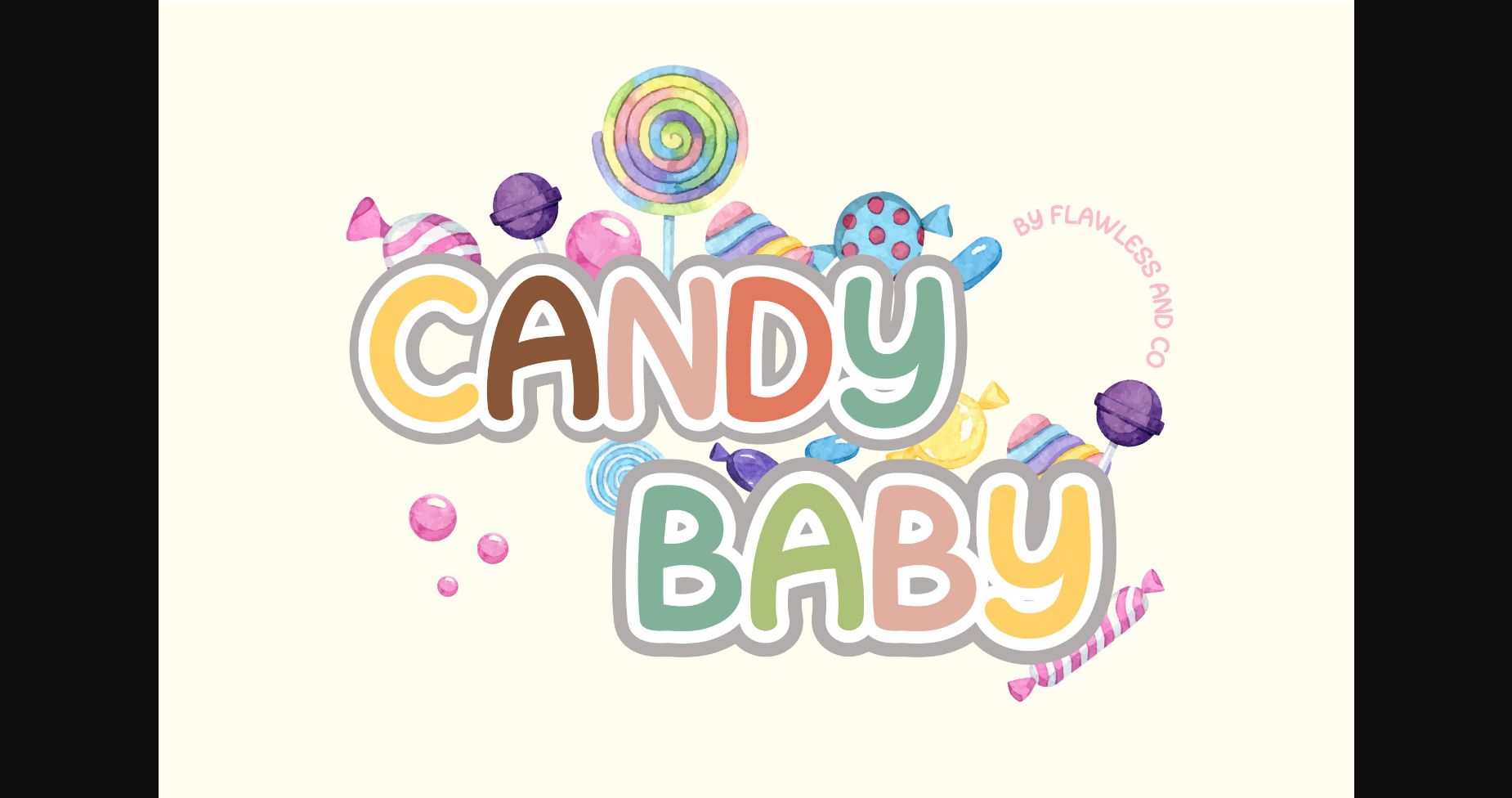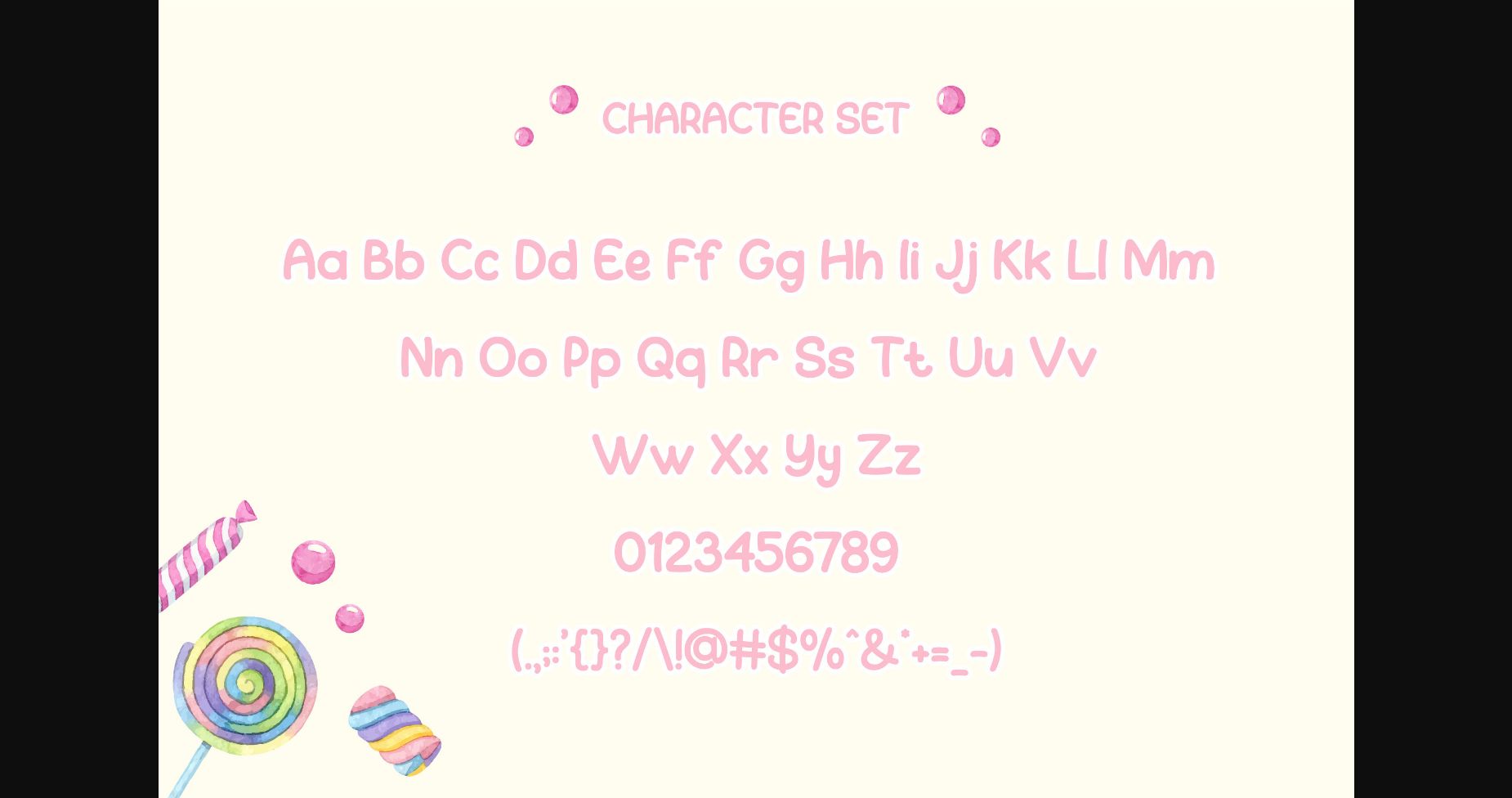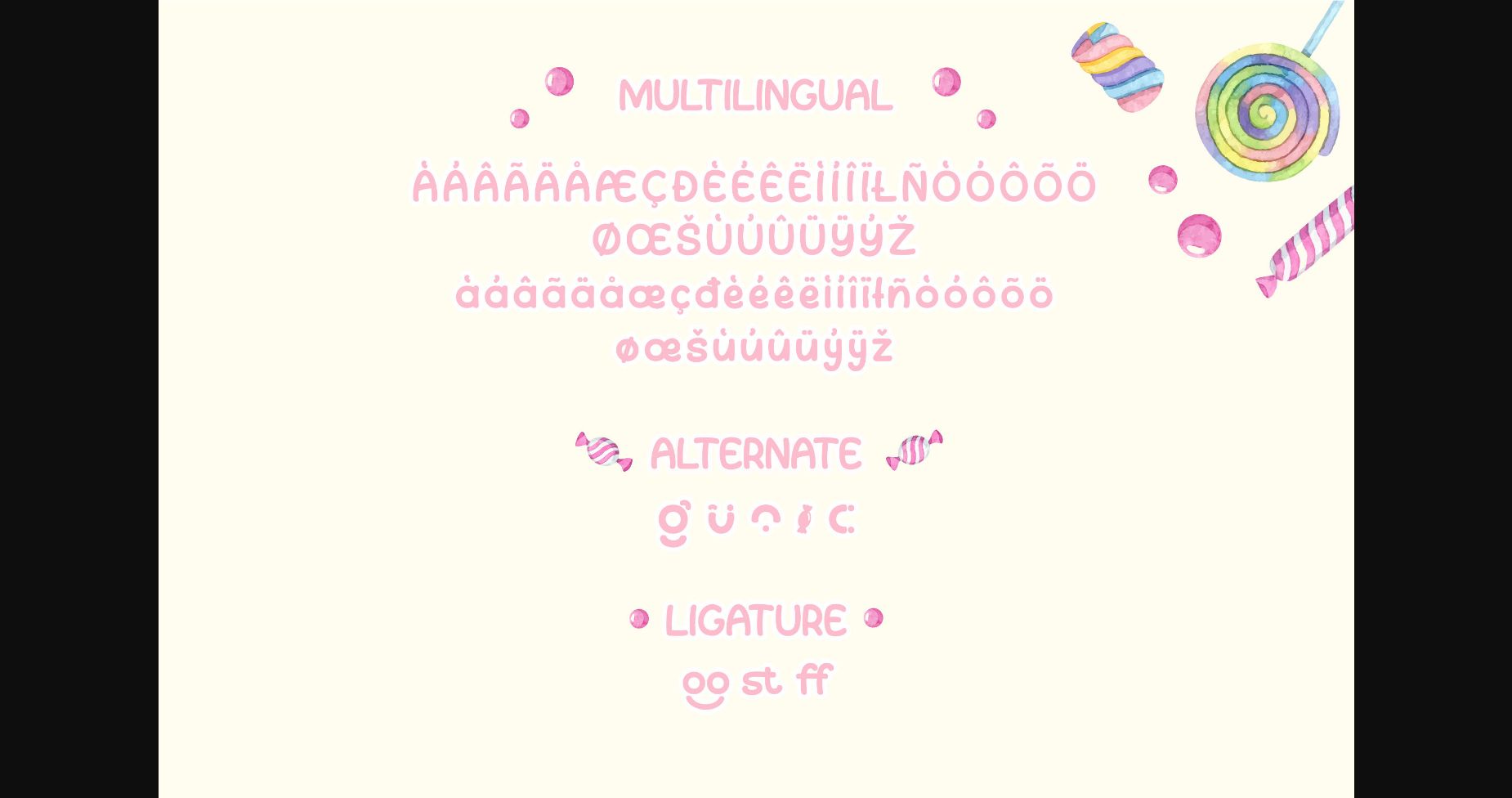
About Candy Baby Font
Introducing “Candy Baby” – a delightful and whimsical font that adds a touch of playfulness to your designs. With its unique and charismatic letterforms, Candy Baby brings a sense of joy and lightheartedness to any project. Candy Baby’s letterforms are infused with a playful spirit, featuring quirky details and expressive curves. Its charming and energetic style is perfect for projects that require a dose of fun, such as children’s books, party decorations, packaging, or any design that seeks to evoke a smile.